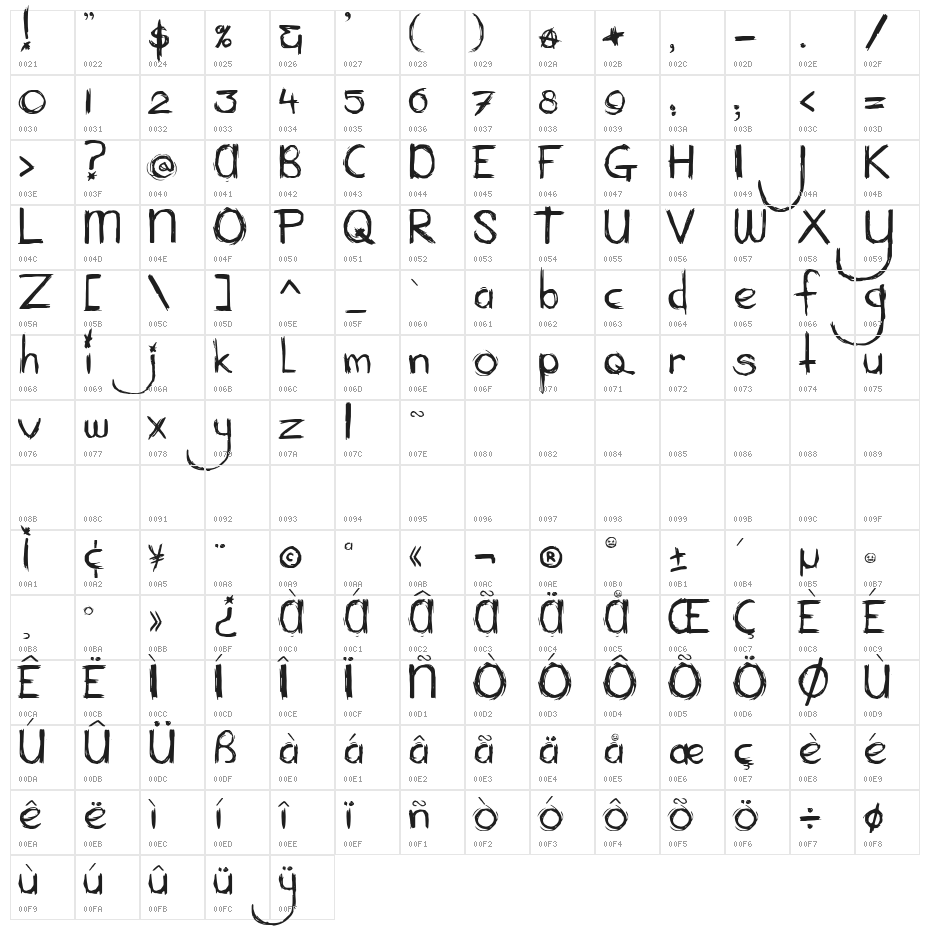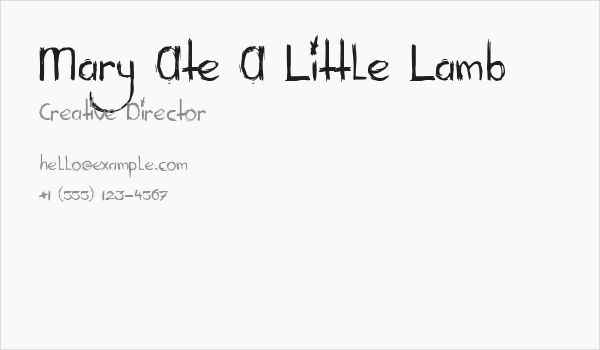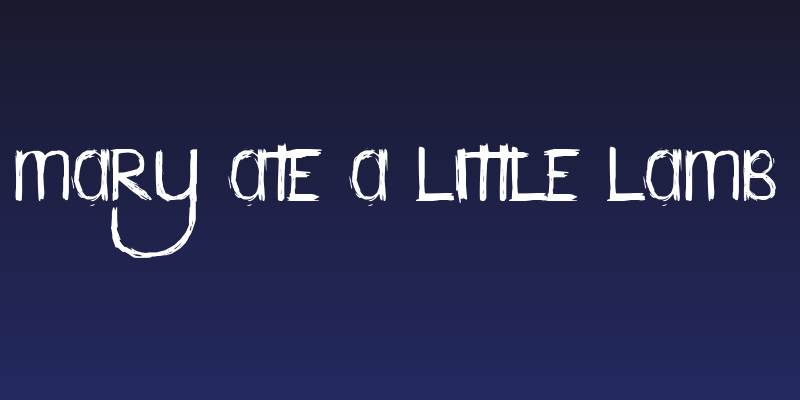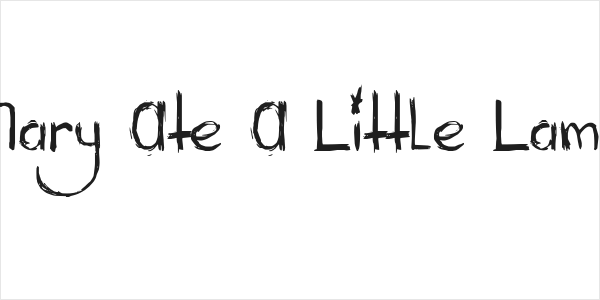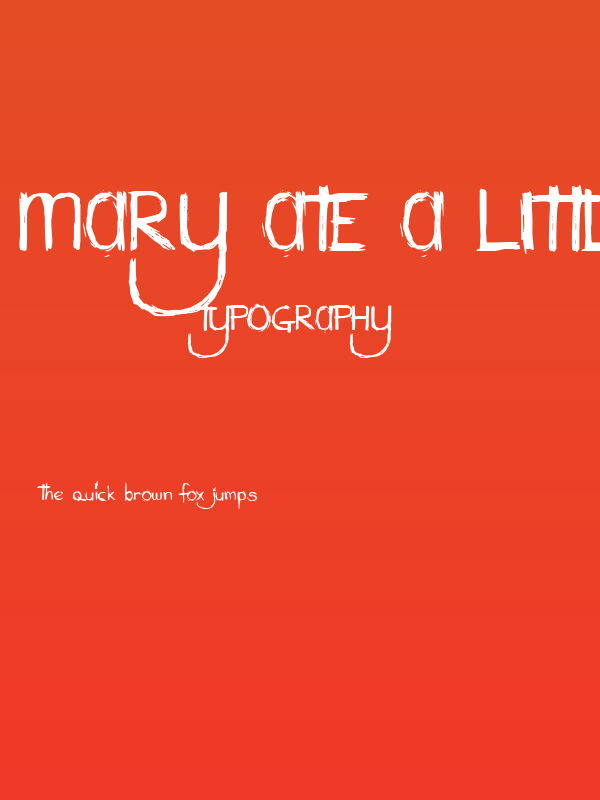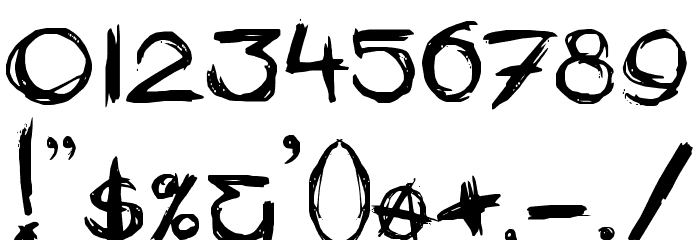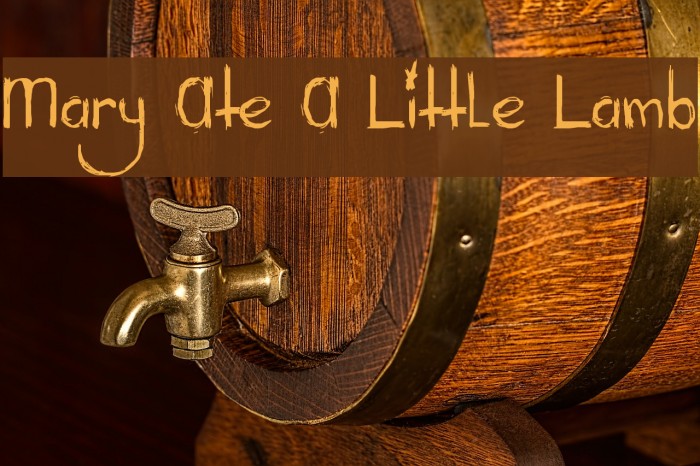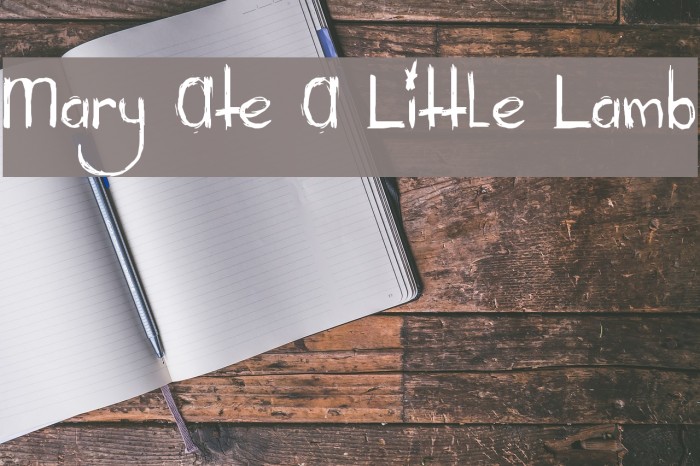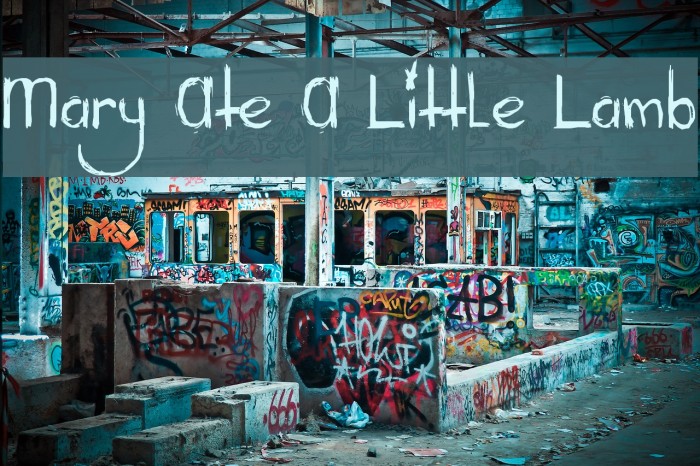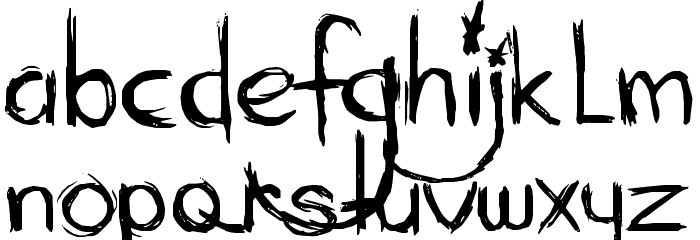
Mary Ate A Little Lamb Font
Mary Ate A Little Lamb Description
This font features a bold, expressive style with a hand-drawn appearance. The strokes are uneven and textured, giving it a raw, artistic feel. Each character is unique, with varying thickness and a slightly chaotic arrangement, adding to its dynamic and energetic look. The uppercase and lowercase letters maintain a consistent style, while the numbers and special characters follow the same expressive design. This font is perfect for projects that require a personal touch or a bold statement.
| Proposed Projects | Ideal for artistic projects, posters, album covers, and creative branding. |